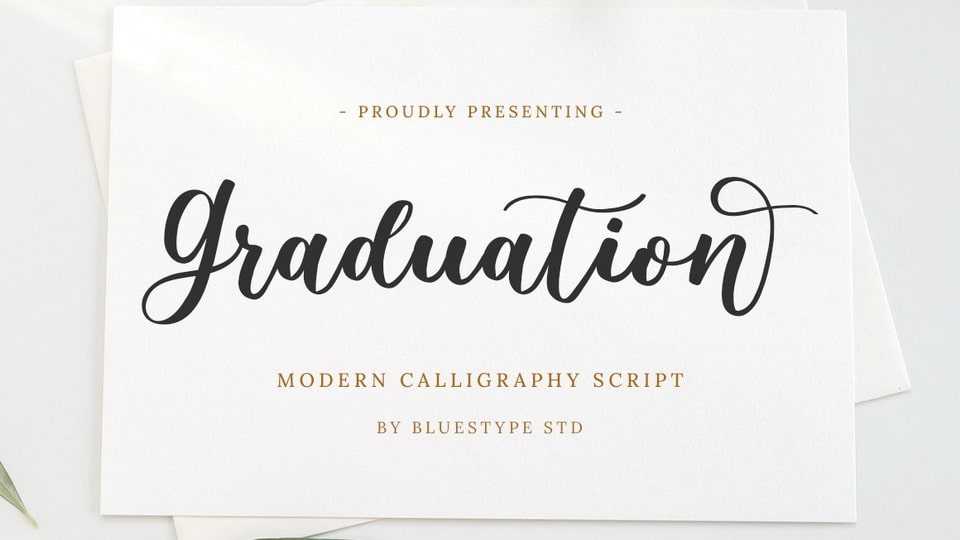
Download Graduation font, a sweet and romantic modern calligraphy typeface. Graduation font is PUA encoded, which means you can access all of the glyphs and swashes with ease!